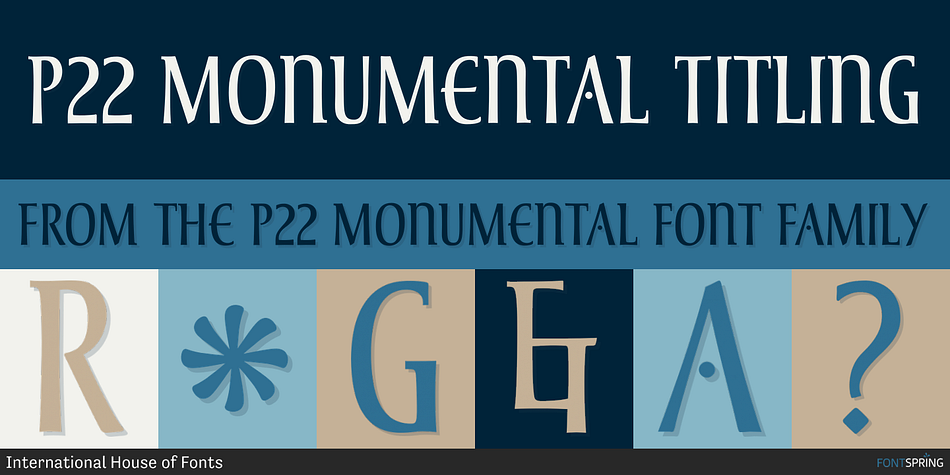
P22 Monumental is a display sans font published by International House of Fonts.
Based on Transitional Roman forms, this tasteful and well crafted Humanist display face exudes an air of authority along with a subtle playfulness. Narrow proportions allow for space conservation. Alternate letterforms & ligatures give this caps-only font expanded possibilities for any given text setting.